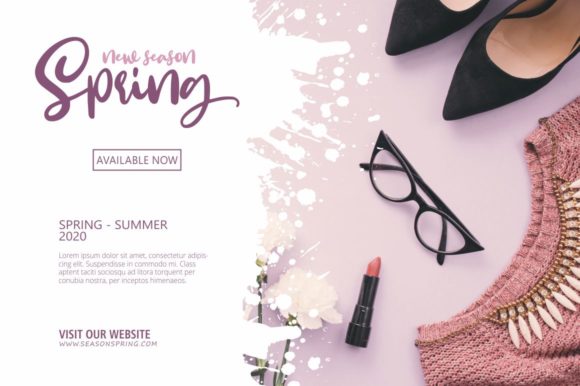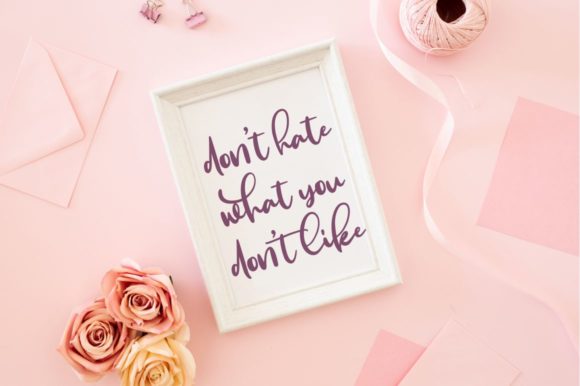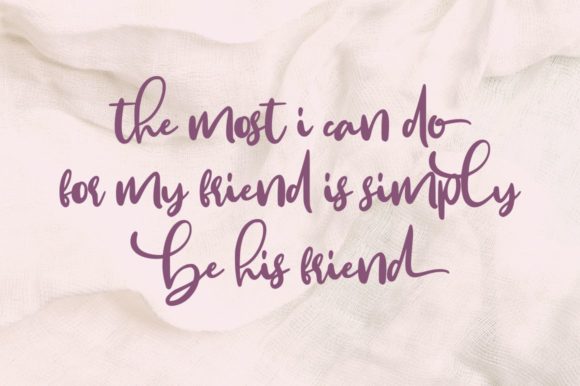
Introduction to Smackover Font
Smackover is a naturally stunning script with an authentic vibe.
It will add an organic feel to any design idea .
Key Features of Smackover Font